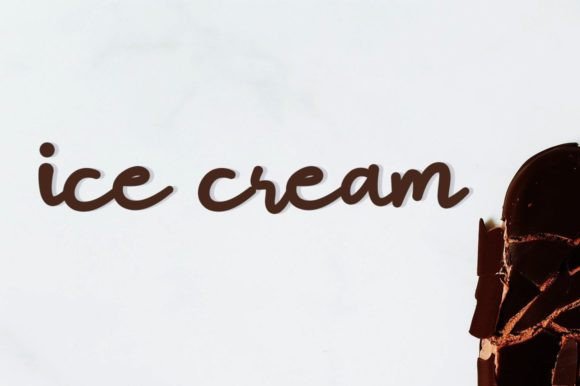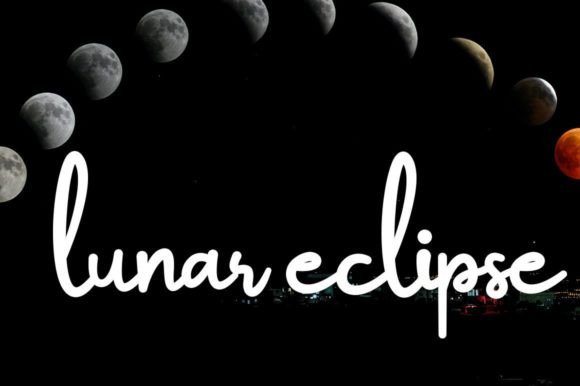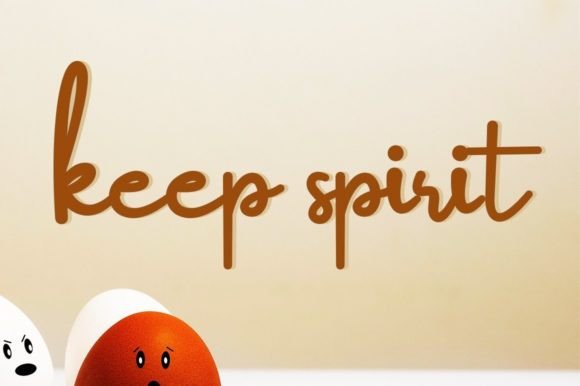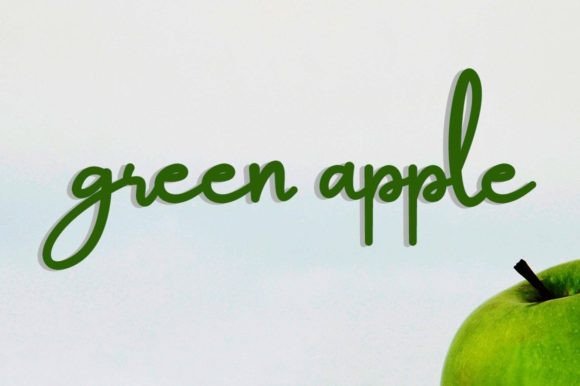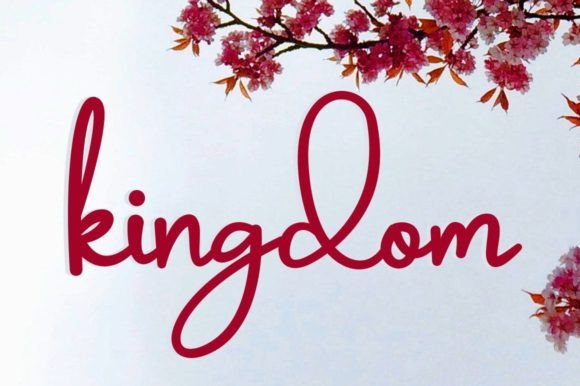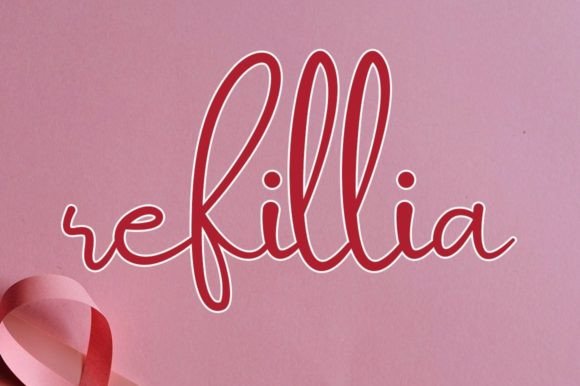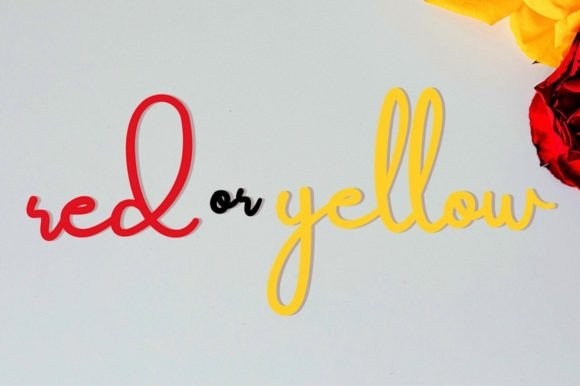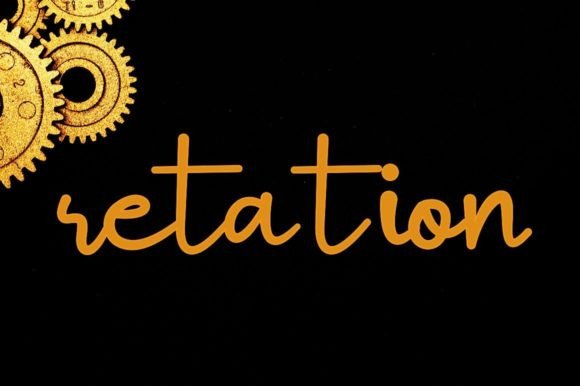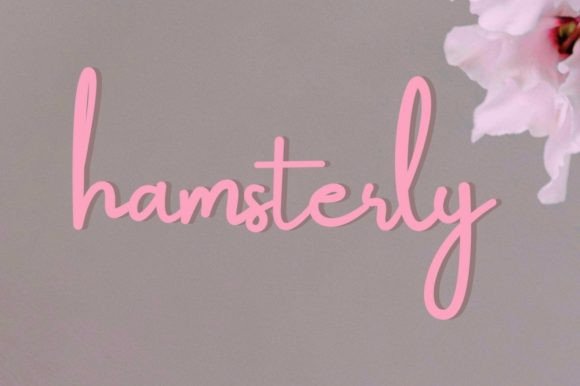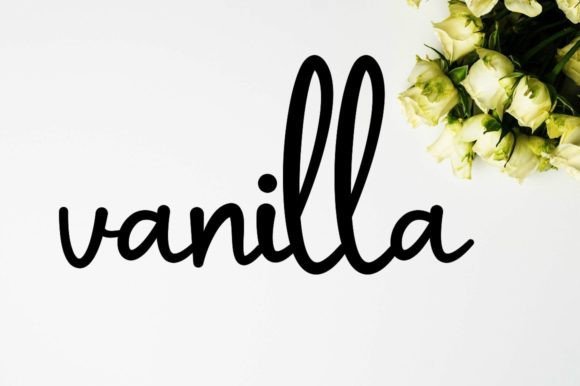
Ice Cream Font
About Ice Cream Font
Ice Cream, with its delightful name, appears to be a versatile and charming font, well-suited for an array of creative applications. This typeface is designed to enhance various visual elements, making it a valuable asset for projects ranging from wall displays and wedding invitations to social media posts, logos, advertising, product packaging, product designs, labels, photography watermarks, invitations, and stationery.
The playful and possibly whimsical nature of Ice Cream makes it an ideal candidate for wall displays. Whether used in art installations or in retail spaces, the font can add a touch of fun and creativity to the visual environment, making it engaging and eye-catching.
For wedding invitations, Ice Cream’s charm can infuse a sense of joy and celebration. The font’s style could convey a light-hearted and romantic atmosphere, setting the tone for a special occasion. Its versatility also makes it suitable for various wedding-related materials, such as stationery and watermarks.
In the realm of social media, Ice Cream can be an attention-grabbing choice. Its unique design can help posts stand out, conveying a brand’s personality and catching the eye of users scrolling through feeds. This is equally applicable to logos, where Ice Cream can contribute to creating a memorable and distinct brand identity.
Advertising materials benefit from the font’s versatility, as it can add a touch of creativity and playfulness to promotional campaigns. Its adaptability extends to product packaging and designs, where Ice Cream can bring a unique character to labels and visuals, enhancing the overall appeal of the product.
Moreover, Ice Cream’s friendly and whimsical appearance makes it suitable for various types of invitations and stationery, adding a touch of personality and creativity to these designs.
In summary, Ice Cream seems to be a charming and adaptable font, ready to bring a playful touch to a wide range of creative projects. Its suitability for diverse applications makes it a valuable tool for designers looking to infuse their work with a sense of fun and creativity.